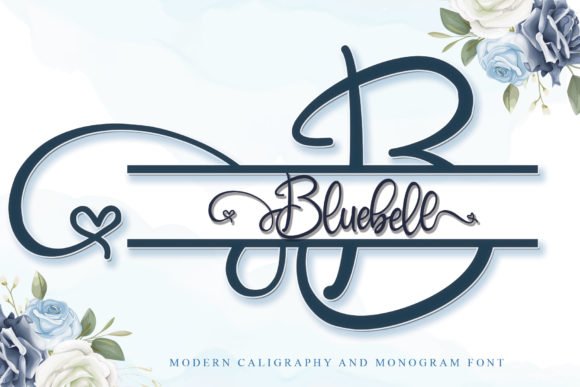
The Perfect Script for Your Masterpiece: Bluebell Font Have you ever been working on a design project, pouring your heart and soul into it, and suddenly, the right font pops up, taking your entire concept to the next level? That’s exactly what happened to me when I discovered the Bluebell Font. Its delicate and refined…